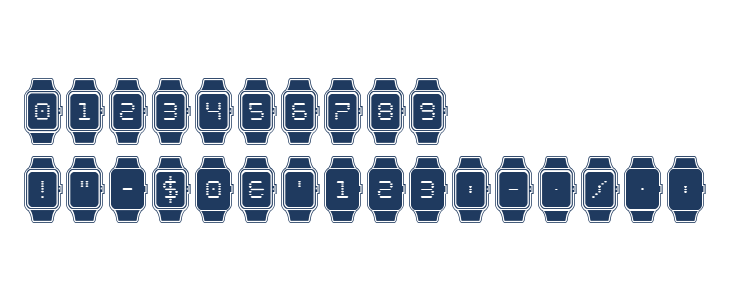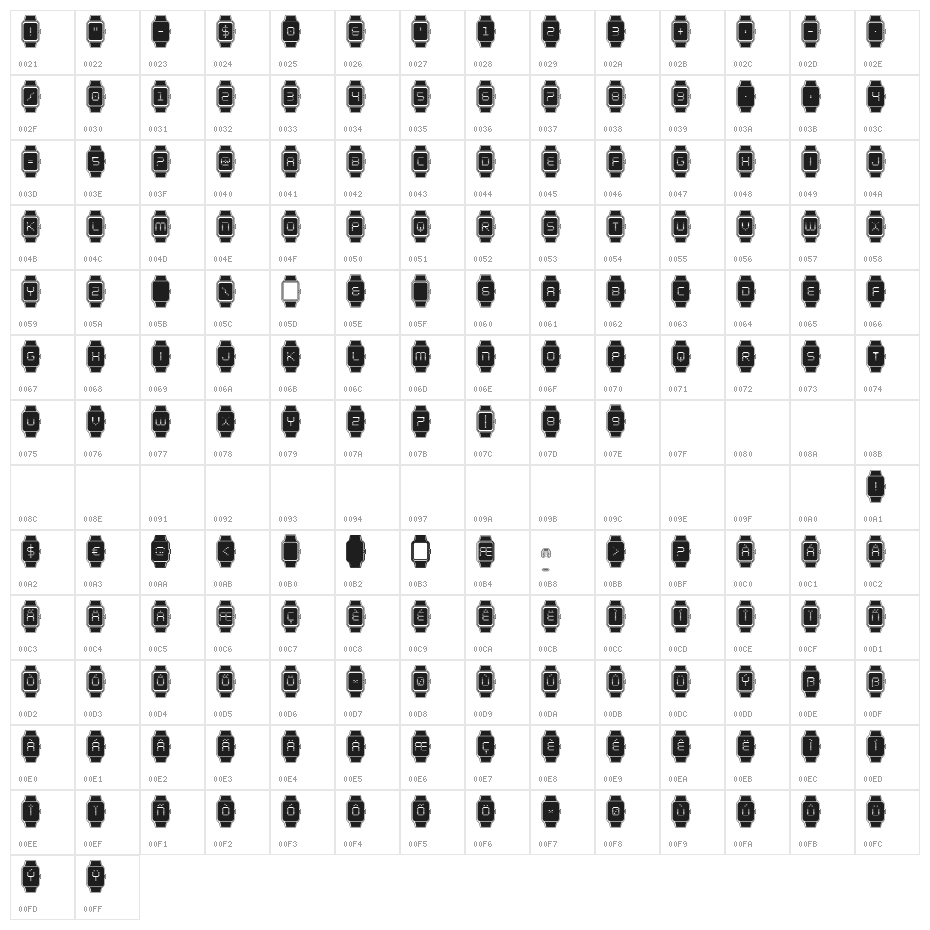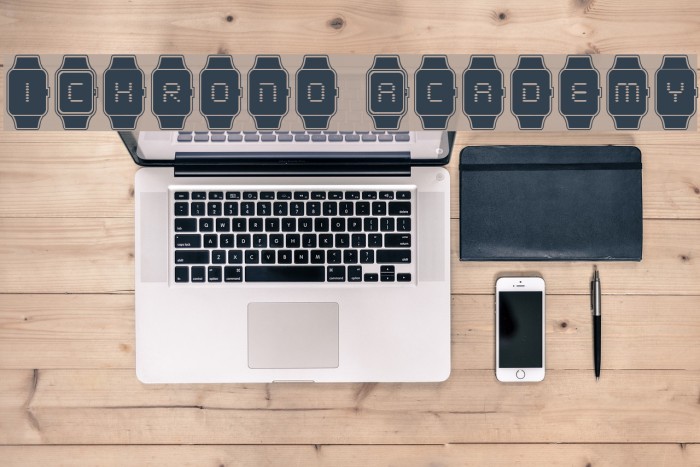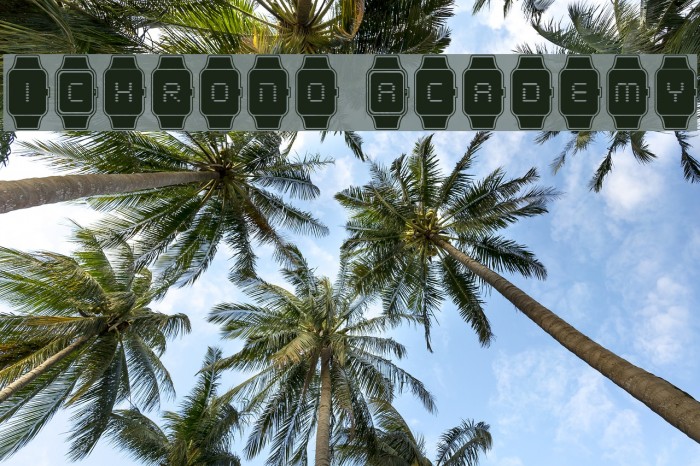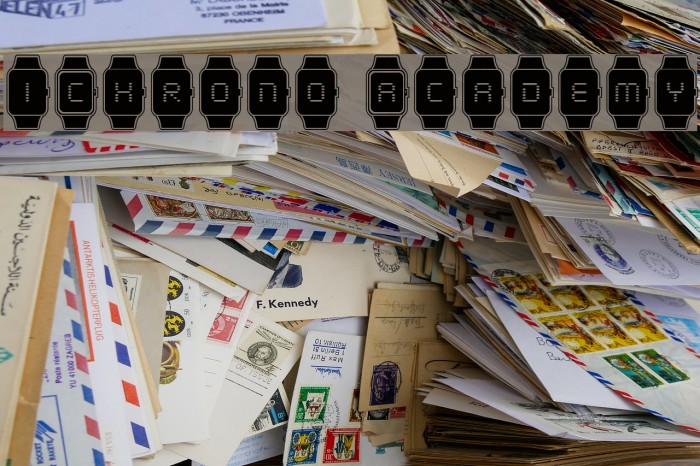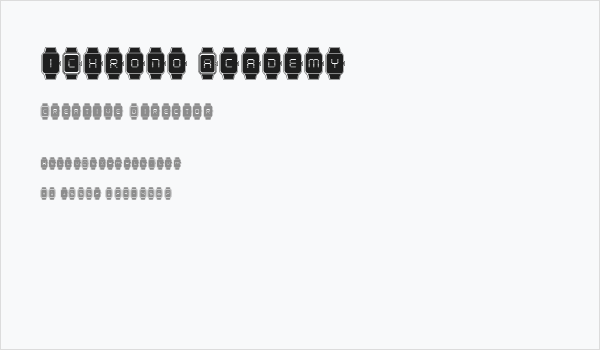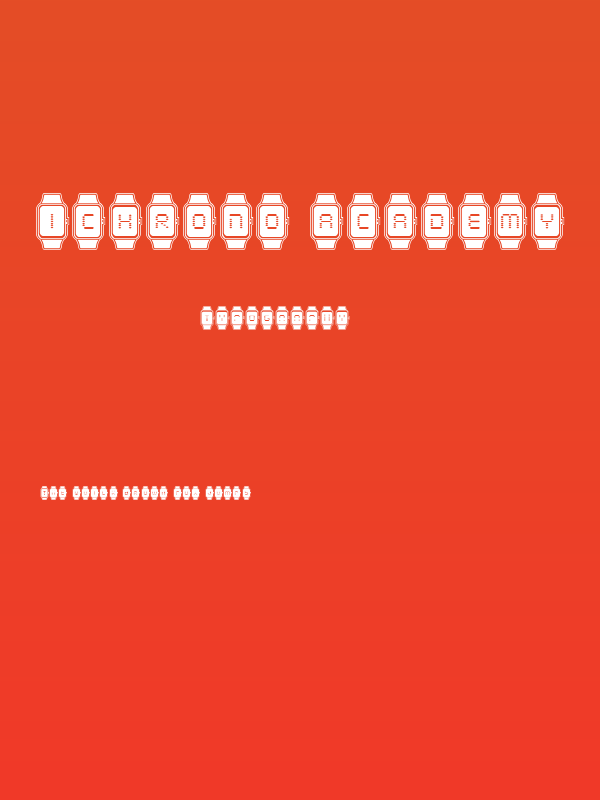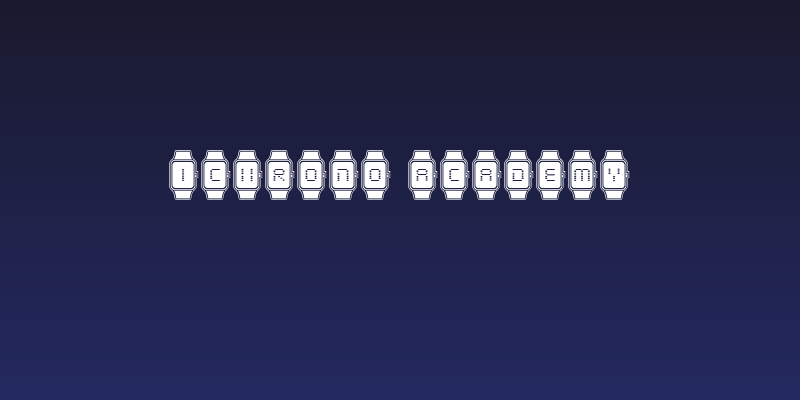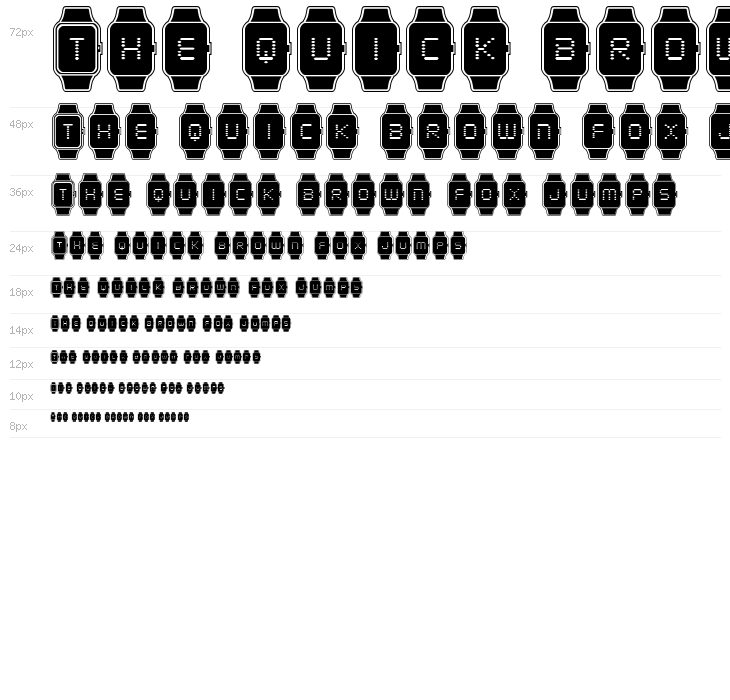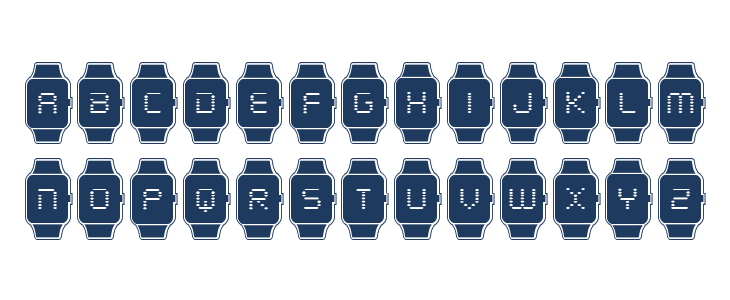
iChrono Academy Font
iChrono Academy Description
This font is designed to mimic the appearance of digital watch displays, with each character enclosed in a watch-like frame. The characters are formed using a series of dots, reminiscent of LED or LCD screens. The style is highly geometric and structured, with each letter and number fitting neatly within the confines of the watch shape. This creates a uniform and cohesive look across all characters. The font has a futuristic and technological feel, making it ideal for projects that wish to convey a sense of modernity and innovation. The use of dots to form characters gives it a unique and distinctive appearance, setting it apart from more traditional digital fonts.
| Use Case | Logos, Headlines, Digital Displays |
| Proposed Projects | Ideal for tech-themed designs, digital interfaces, futuristic branding, and sci-fi projects. |